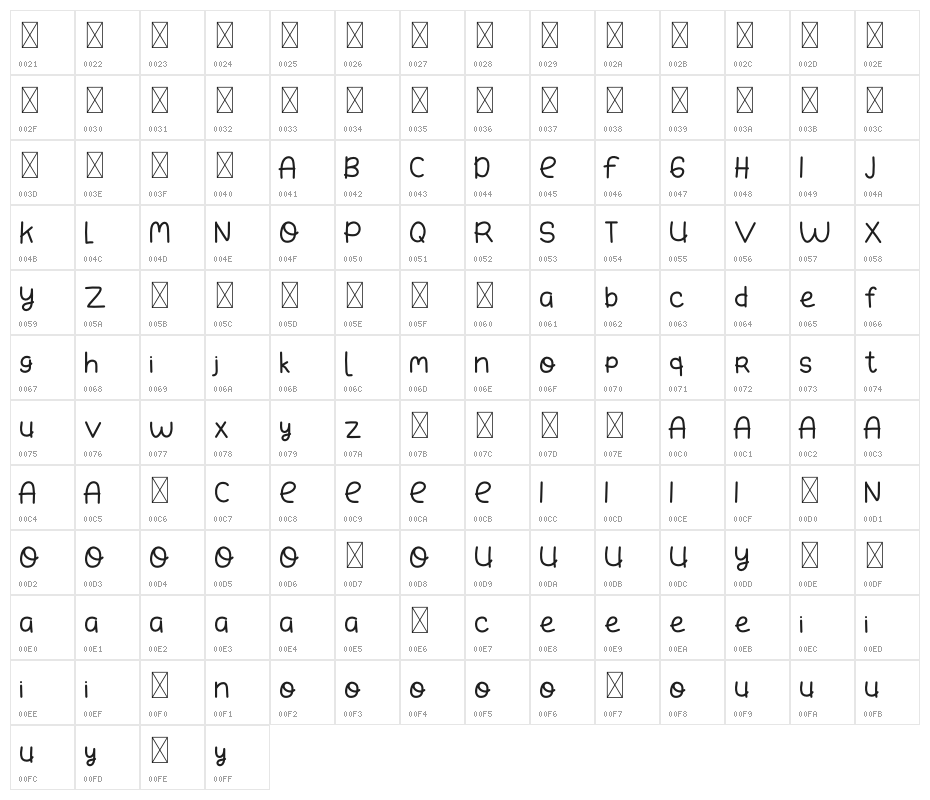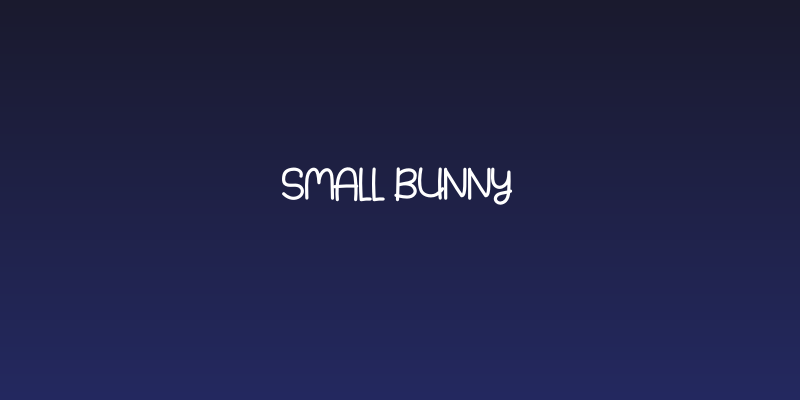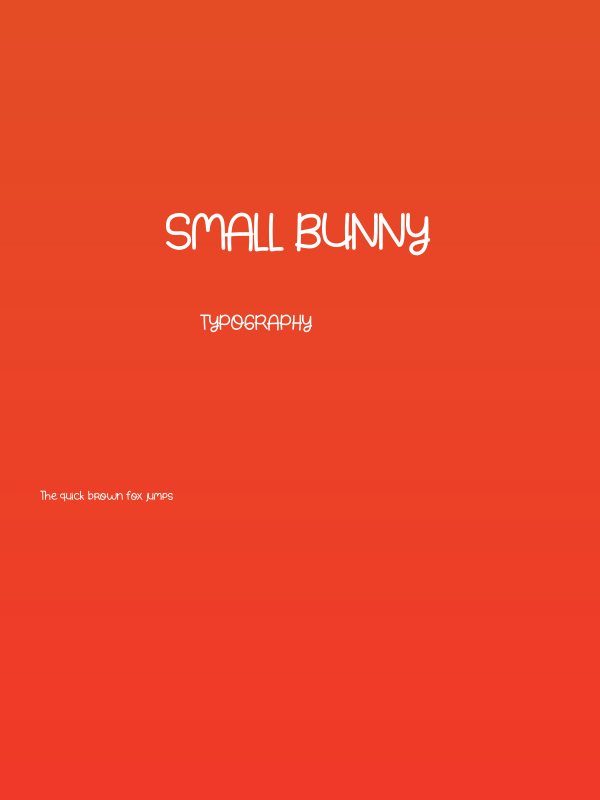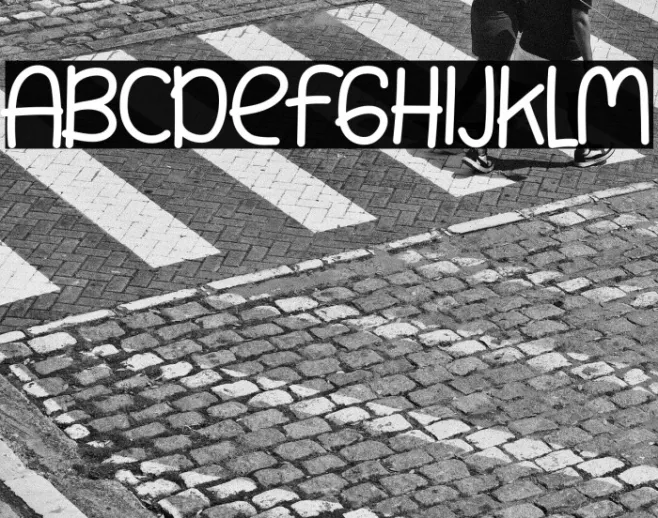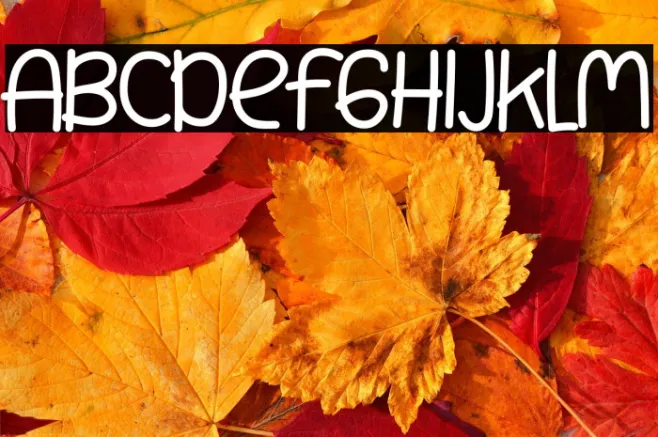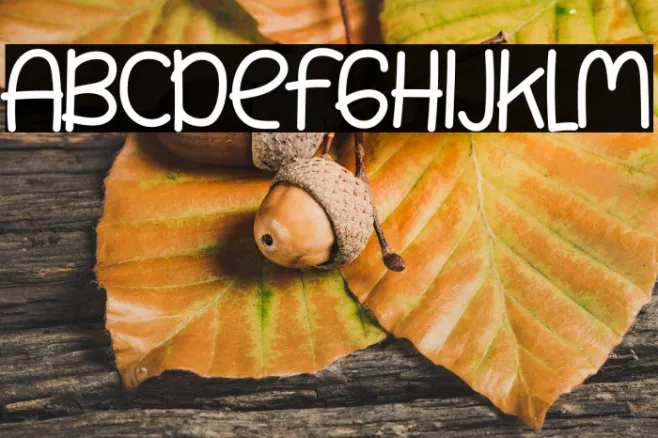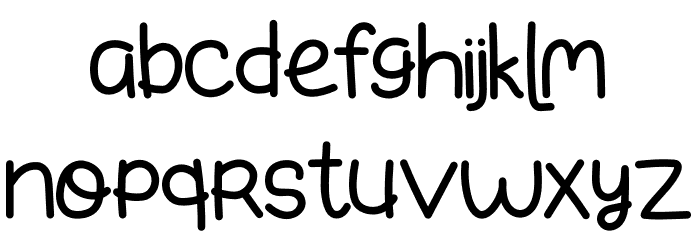
Small Bunny Font
Small Bunny Description
This playful and whimsical font features rounded, smooth edges and a hand-drawn aesthetic. The characters are slightly irregular, giving it a casual and friendly appearance. The uppercase and lowercase letters maintain a consistent style, with a slight tilt that adds to the informal feel. The font has a uniform stroke width, contributing to its approachable and easygoing nature. It is well-suited for projects that require a touch of fun and creativity, such as children's books, playful branding, or casual invitations.
| Overall Style | Whimsical |
| Proposed Projects | Ideal for children's books, playful branding, casual invitations, and creative projects. |